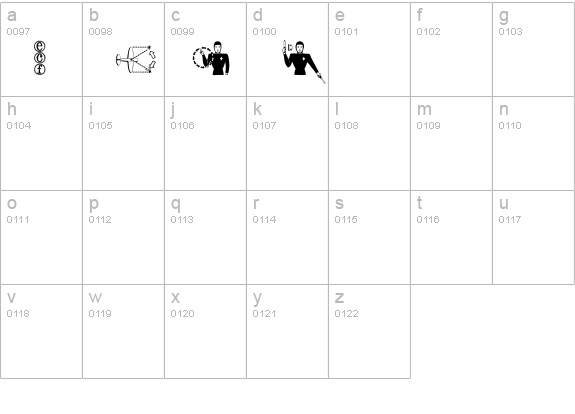
flyboy (eval) Font Details
Flyboy (eval) font is a stunning display typeface that exudes a sense of adventure and sophistication. Its bold and dynamic character will make any design project stand out from the crowd. With its sleek lines and modern aesthetic, this font is perfect for creating eye-catching headlines, logos, posters, and more. The best part is that Flyboy (eval) font is completely free to download at FontsMarket.com. This means that you can access this high-quality typeface without breaking the bank. Whether you're a professional designer looking to add a new font to your collection or a hobbyist seeking a fresh look for your creative projects, Flyboy (eval) font is the perfect choice for all your design needs. Download it today and unleash your creativity with this amazing font!